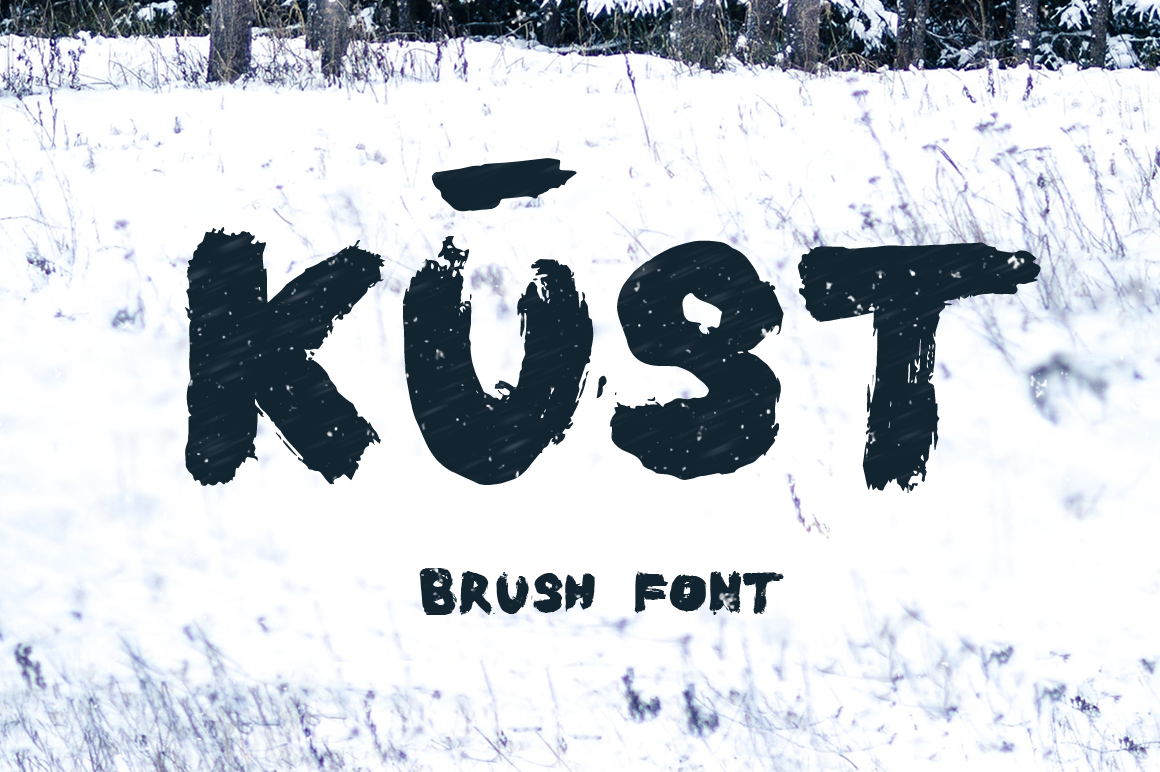
Kust Extended Brush Font
The all new and upgraded version of the already famous and widely known typeface Kūst. Now Kūst has more than 430 characters and is also available as latin pro and cyrillic. Every letter has been chosen by carefully looking at how they all come together and combine thea form of a open visual language.